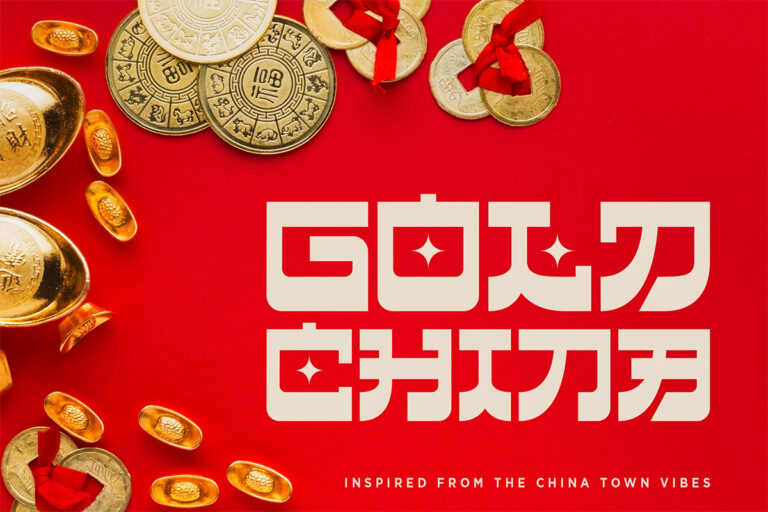
20 Best Helvetica Font Alternatives
Helvetica is one of the most popular fonts in the world. It’s clean, modern, and easy to read. Designers love it because it works almost anywhere, from websites to posters to logos. But sometimes, you want something similar with a bit more personality or flexibility.
That’s where Helvetica alternatives come in. These fonts have the same clean look but offer different styles, weights, or licenses. Some are free, some feel more unique, and others are better suited for digital screens or long paragraphs.
In this list, you’ll find 20 great fonts that give you the feel of Helvetica without using the exact same style. Whether you’re designing for print or web, these fonts will help you keep things fresh and professional.
Where to Use These Fonts
These Helvetica-style fonts are perfect for:
- Websites and landing pages
- Company branding and logos
- Posters, flyers, and brochures
- Mobile apps and UI design
- Presentations and slide decks
Whether you need something minimal or more expressive, these fonts give you the flexibility to match your brand or project.
Why Look for Helvetica Font Alternatives?
While Helvetica is loved for its simplicity and versatility, there are times when you might need something different. Maybe you’re looking for a font that stands out or one that fits a tight budget better. Exploring other options can help you find a fresh look while keeping the spirit of your project intact.
A World Beyond Helvetica
Let’s walk through some alternatives that keep the essence of Helvetica but bring their own unique twist:
Nawabo Sans Serif
Korean – Futurstic Helvetica fonts
Korean will brings you to the next level of a stunning typeface that can showcase elegance but with a minimalist form. The curves at each end of the letter ornament illustrate that this font is very ready to live in the present and the future. Minimalist yet luxurious and classy. Whether used for branding, Design templates, in the form of invitations, calendars, posters, headlines, brochures, promotional tools or editorial designs, Korean was created to meet the visual needs of a technological modernity development.
Anything – Inspired by Helvetica Font
A Sans serif that we created special for unique branding needs, with extra ligatures in unique shape will be ready to add value of your brand. It so nice to leverage designer or product owner that need solutions to make their design look more unique and modern.
Neuething modern Helvetica Style font
Neuething sans is that that creative’s work horse clean simple sans serif. It is extremely versatile, and I use it in every project because it pairs so well with any other typeface. It is perfect for body or headlines, posters, magazines, Instagram, books, branding, you name it.
Gucina Geometric Font Family
Introducing the elegant and modern Gucina Geometric Font Family – a versatile typeface that will add a touch of sophistication to your designs. With its clean lines and geometric shapes, this font type is perfect for creating minimalistic logos, advertisements, web designs, and branding materials.
Kohsine – Modern Display Font
Meta Link – Modern Font
Meta Link is Sans Serif inspired by future techno and sport great for product logo, poster, headline, card logo, web, magazine, packaging, stationery and much more. Easily creates your own logo types with font.
Amenti – Clean Modern Sans
Introducing Amenti, the epitome of modernity and sophistication. With its clean lines and graceful curves, this font is a sight to behold. Amenti comes in six different weights, each as breathtaking as the last. Its timeless beauty and stylish elegance will leave a lasting impression on anyone who encounters it.
Golger Sans Serif Font
Golger Sans is a Classic Contemporary Sans serif. With bold weight stroke and fun character with a bit of ligatures. To give you an extra creative work. Golger Sans font support multilingual more than 100+ language. This font is good for logo design, Social media, Movie Titles, Books Titles, a short text even a long text letter and good for your secondary text font with script.
Oakley Minimal Typeface
Oakley is a versatile and minimal typeface. This font can be used for professional logos, web design, slogans, magazine covers, wedding cards, invitations, and advertising. Type projects and headlines flourish from its highly contrasting contours. Oakley offers countless style options. For any creative project, it is the optimal choice.
In summary.
While Helvetica has a position in the design world, there is a vast array other fonts to discover. Each of these font alternatives to Helvetica has something special to offer, whether it’s a different atmosphere, a more affordable option, or a new spin on a classic design. Why not try something new? Who knows, maybe you’ll find your next favorite font. What story will your design tell using these additional options?